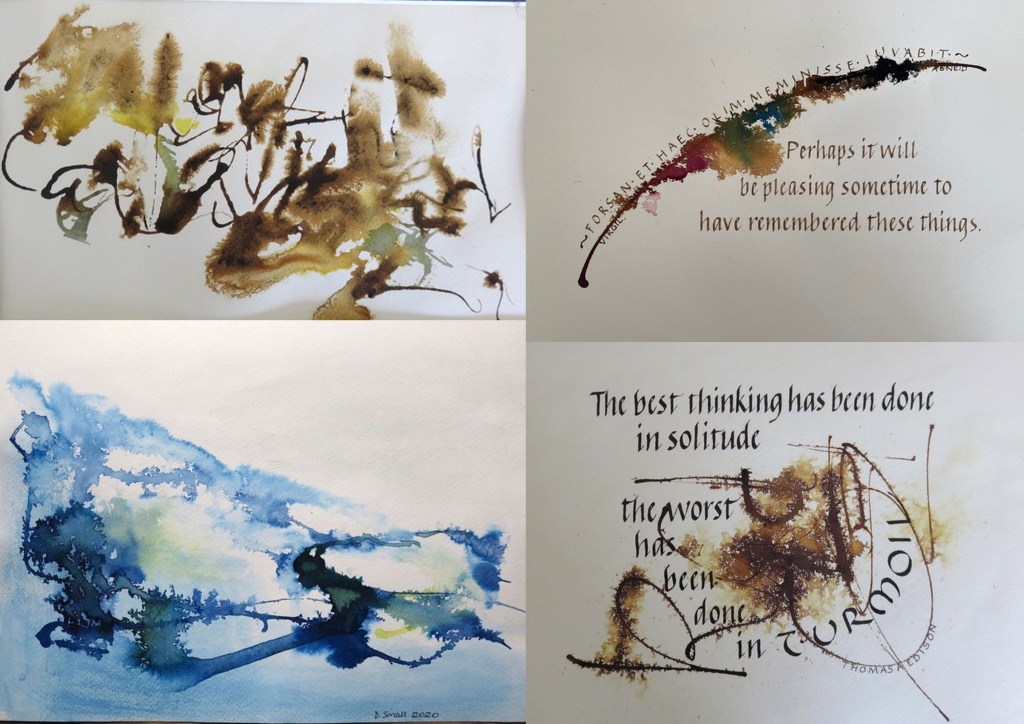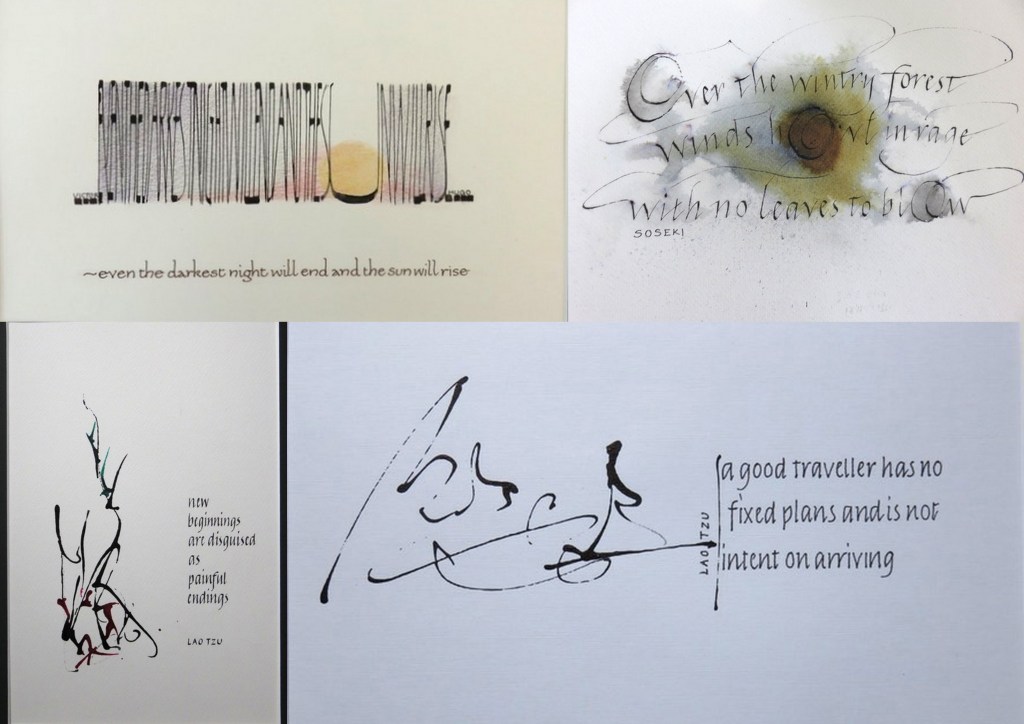
3 Collages of Doreen Small’s photos of her experiments.
“I love to experiment: to ‘play’ with different materials and tools. I work quickly, with little initial planning and even less finessing.
Attending the 2018 CLAS Festival in Yukimi Annand’s class was a game changer for me, as were GLA workshops with Simon Sonsoni and Rachel Yallop. I find inspiration in the work of others eg Denise Lach and calligraphy exhibitions such as those at Snape Maltings.
For many years, I have kept a notebook of quotations, poems, and thoughts. I use these, combining them with my experiments and mental images. I convince myself, when these do not work, that there is no such thing as failure: I always learn and enjoy.”